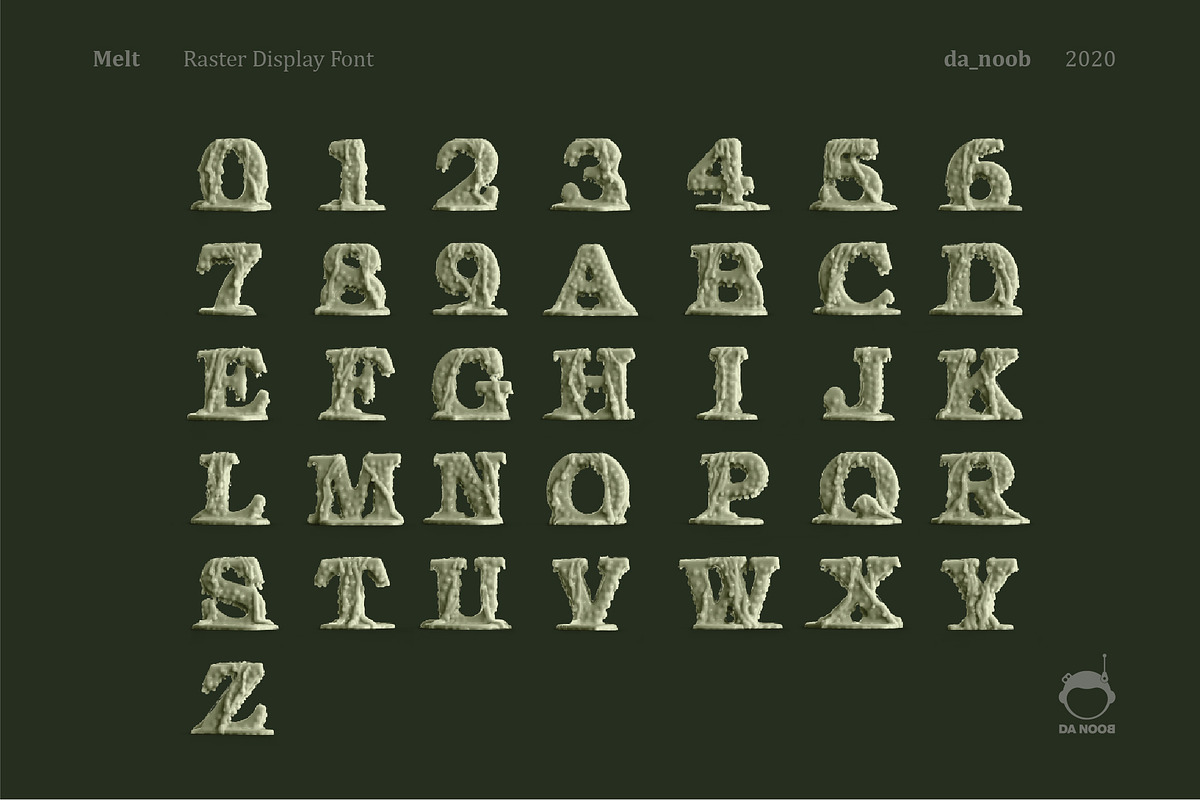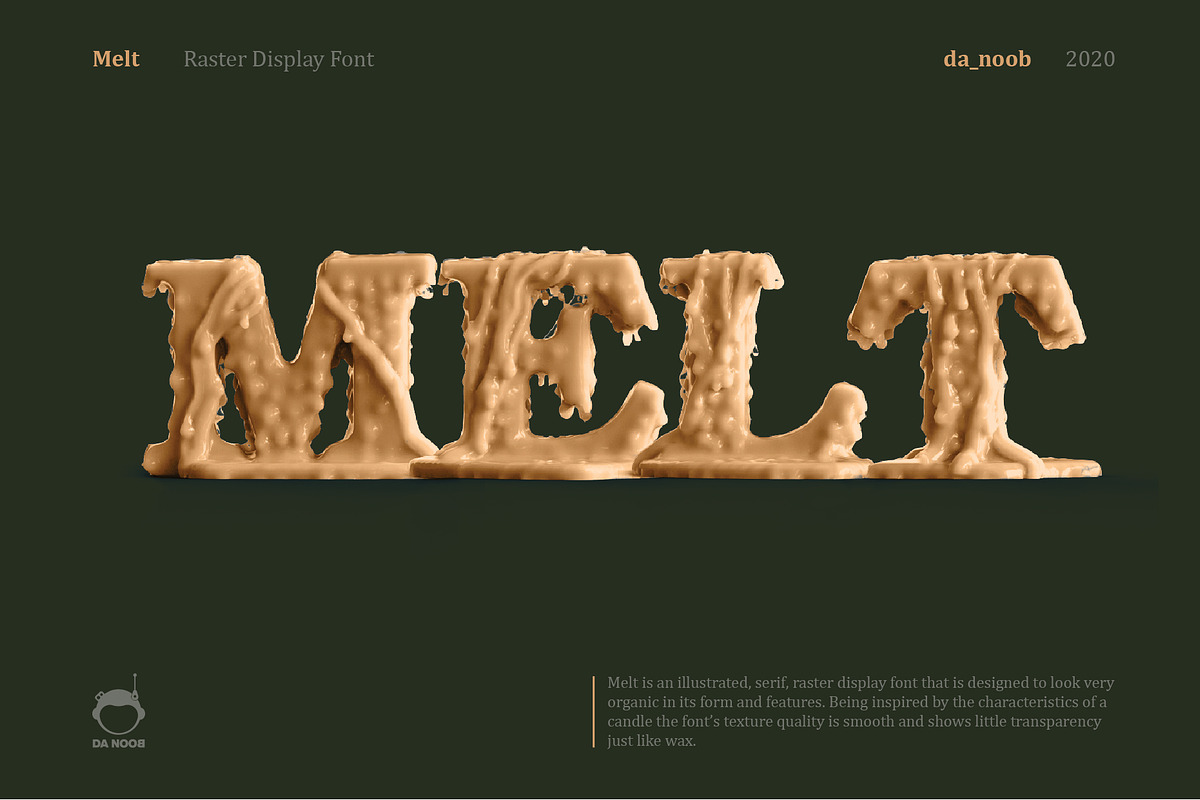
Melt - Raster Display font
Melt is a high quality raster display font, inspired by melting wax it features beautiful organic forms with hyper real texture quality. Thought the font has distinct use cases depending on the creator, it can be best used for headings, short words and illustrative typographic projects. PLEASE NOTE that its a display font.
1. The font does not contain special characters and small alphabets.
2. Each alphabet can be scaled to 1500px 1500px without loosing the quality.
4. This is not a vector font.